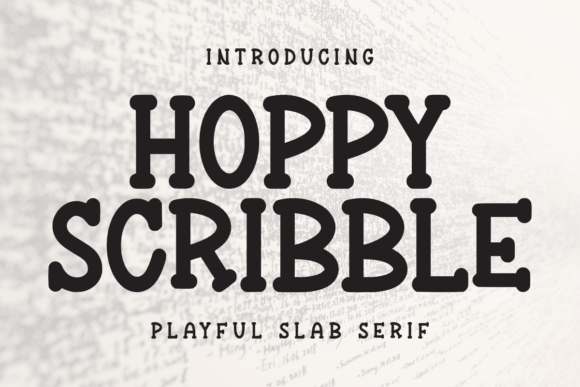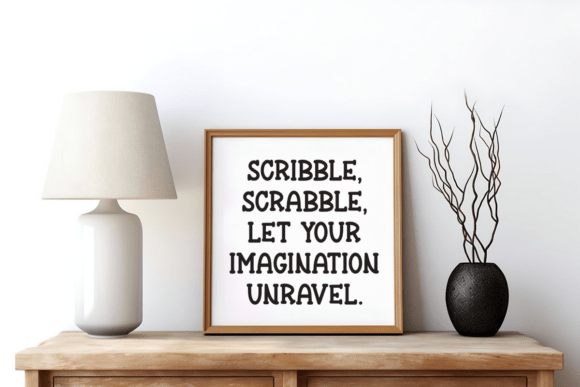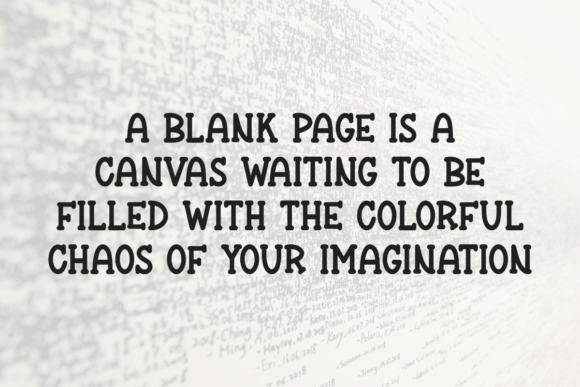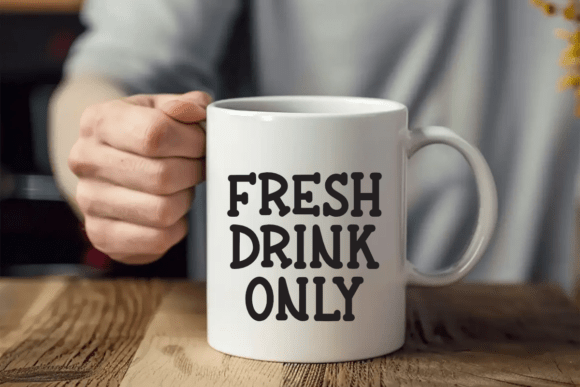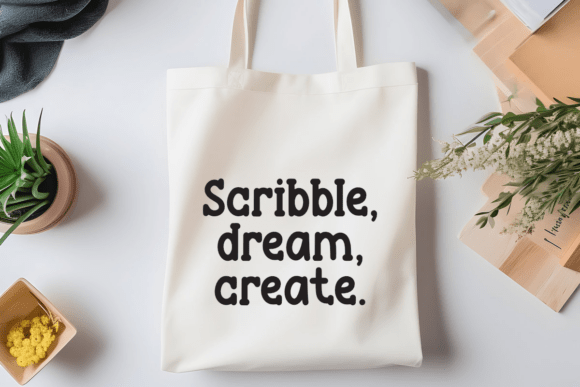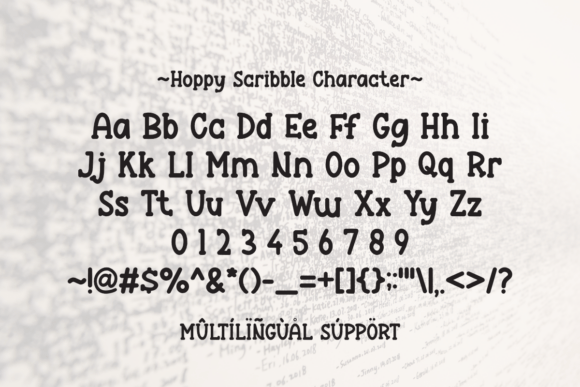
Hoppy Scribble Font
Hoppy Scribble is a playful slab serif font that brings a burst of charm and sweetness to your designs. With its rounded terminals and candy-inspired character, it’s perfect for children’s projects, snack packaging, logos, and any layout that craves a fun, bouncy look.